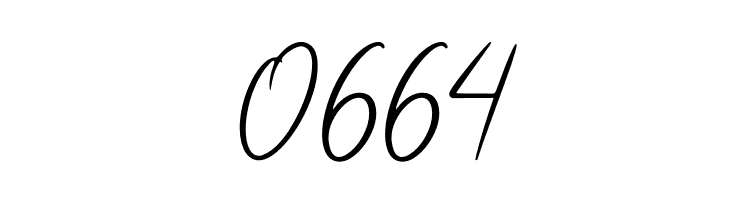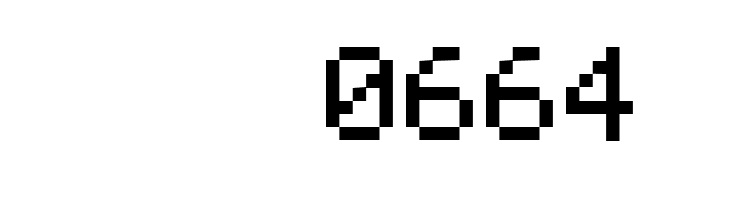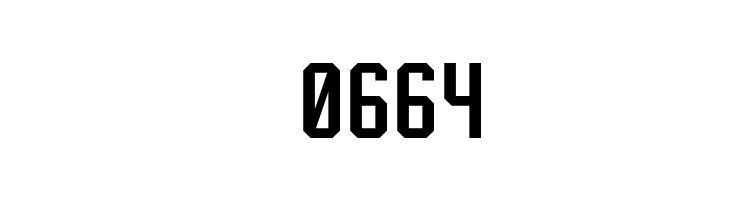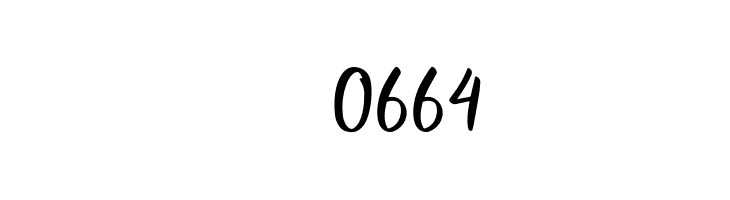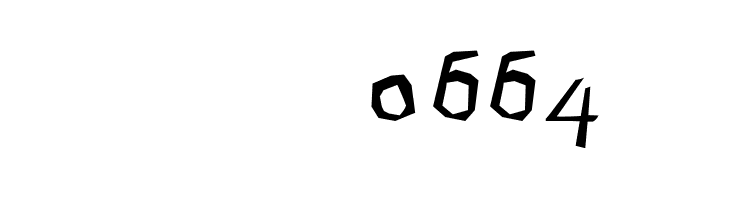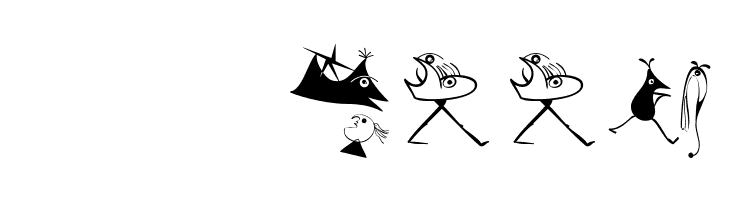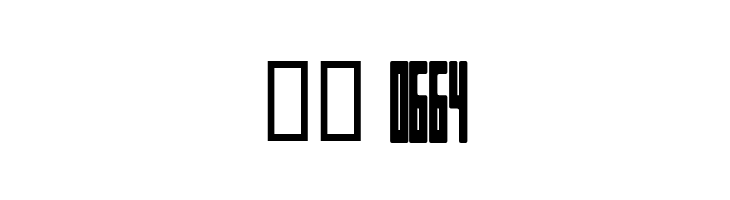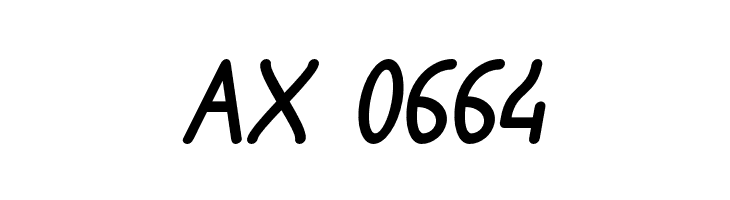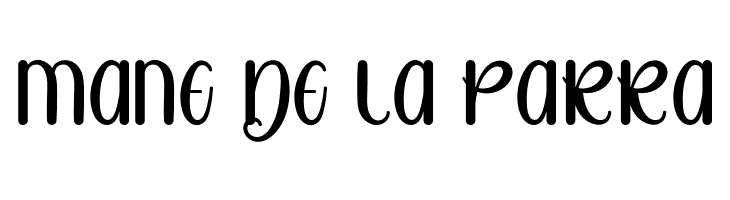
• RomanticShadows
The image features decorative silhouette illustrations, not a font.
• RomanWoodcut
A vintage, woodcut-inspired font with bold, angular characters and a handcrafted feel.
• Romeric
A bold, geometric font with a modern and uniform design.
• RomiPetito
A whimsical and artistic font with abstract, cartoon-like characters.
• Romtthing Free
An elegant, flowing script font with classic calligraphy style.
• Ron
A bold, geometric font with strong, angular lines and a modern aesthetic.
• Rondouillard
A playful, rounded font with smooth, flowing lines and a friendly appearance.
• RoofSpotters
Ornate, fantasy-themed font with gargoyle illustrations for each character.
• Roots Regular
A decorative font with nature-inspired, abstract shapes.
• RosalindaFree
An elegant, flowing script font with artistic loops and swirls.
• Roscheefs Free Regular
Playful handwritten script font.
• Rose Hips FREE
A whimsical, hand-drawn font with intricate, sketch-like details.
• ROSE TATTOO
A bold, decorative font with a tattoo-inspired, edgy aesthetic.
• ROSE TATTOO
A bold, decorative font with intricate tattoo-inspired detailing.
A playful, hand-drawn outline font with a lively and dynamic style.
A playful, handwritten font with bold, energetic strokes and a friendly feel.
• Rosega FREE
A dynamic and elegant script font with flowing, cursive letterforms and intricate flourishes.
• Rosela FREE
A flowing, cursive script font with elegant loops and swashes.
• RoseNote
A decorative font with letters encased in a rose motif, offering an artistic and elegant style.
• Roses are FF0000
A pixelated, retro font with a blocky, digital appearance.
• Rosesmont Free Regular
A dynamic, fluid script font with elegant, flowing lines and cursive letterforms.
• RosettaCalligraphiaOne
Abstract, circular symbol font with high-contrast decorative motifs.